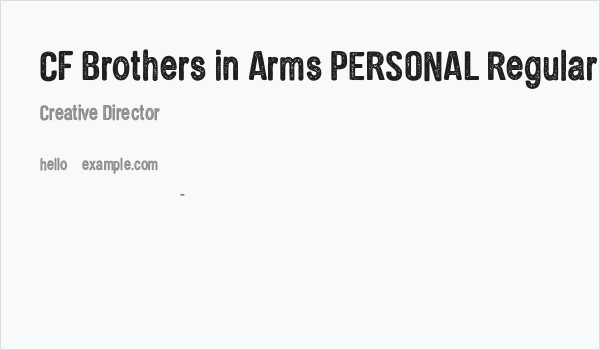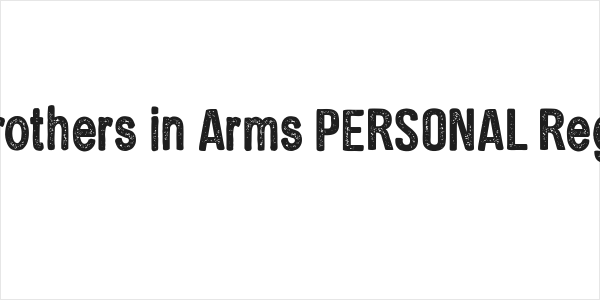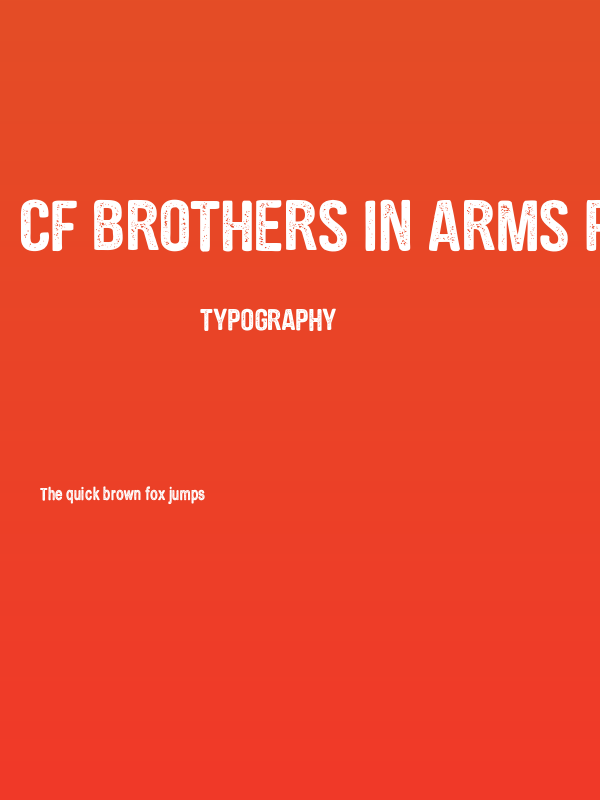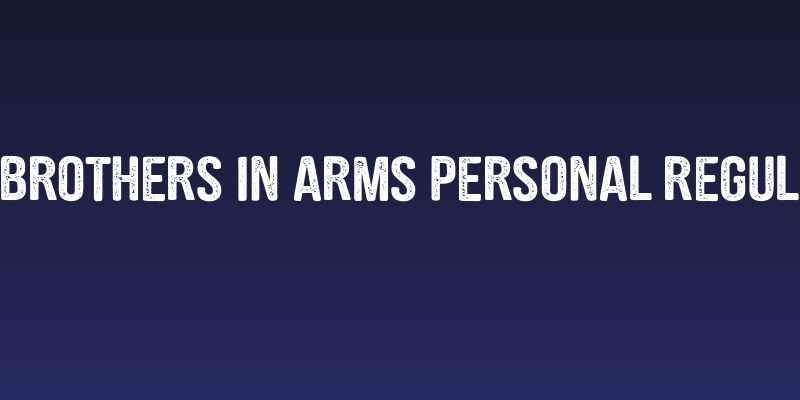
CF Brothers in Arms PERSONAL Regular Font
CF Brothers in Arms PERSONAL Regular Description
This font features a bold and rugged design with a distressed texture that gives it a vintage, worn-out appearance. The uppercase and lowercase letters are uniformly bold, with rounded edges that soften the overall look. The texture within each character adds a unique, handcrafted feel, making it stand out in designs that require a touch of authenticity and character. The numerals and special characters maintain this distressed style, ensuring consistency across all text elements. This font is particularly suitable for projects that aim to evoke a sense of nostalgia or a retro aesthetic.
| Proposed Projects | Ideal for vintage-themed posters, retro branding, album covers, and apparel designs. |